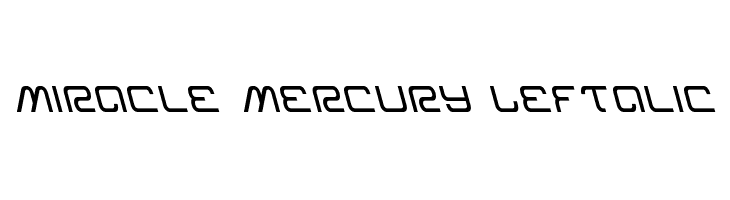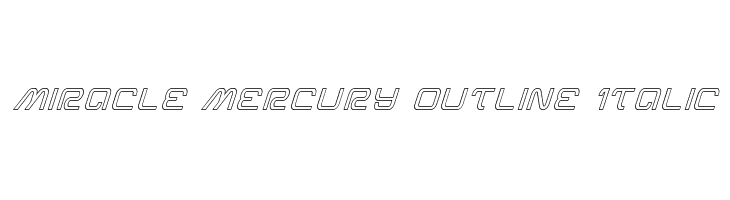
A futuristic, geometric font with consistent stroke width and angular design.
A modern, geometric outline font with clean lines and a futuristic style.
A modern, geometric outline font with an italic slant and consistent stroke widths.
A futuristic, geometric font with semi-bold weight and rounded edges.
A futuristic, semi-bold, expanded font with geometric and modern design.
A modern, semi-bold, expanded italic font with a futuristic style.
A sleek, modern semi-bold italic font with medium contrast and a dynamic, futuristic feel.
A modern, semi-bold, semi-italic font with a futuristic and dynamic style.
A modern, geometric semi-italic font with a sleek and futuristic design.
A sleek, modern italic font with geometric precision and a dynamic style.